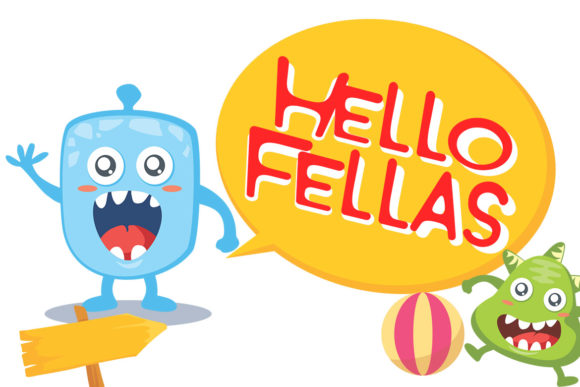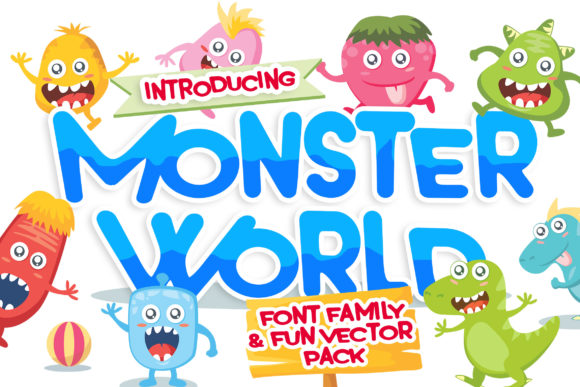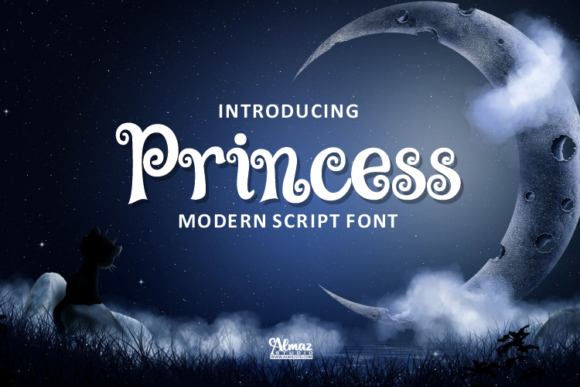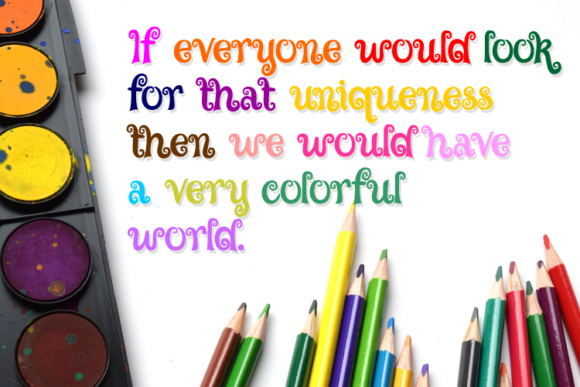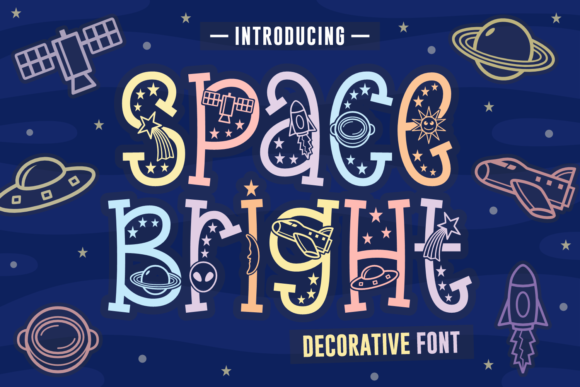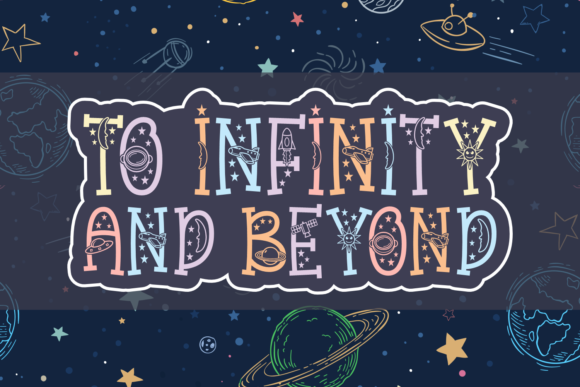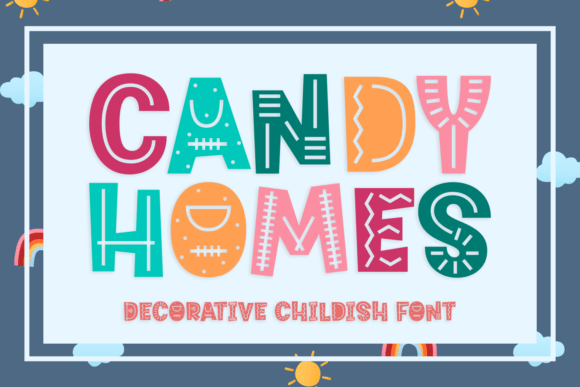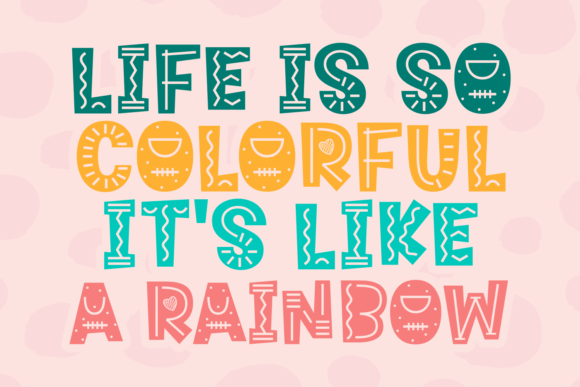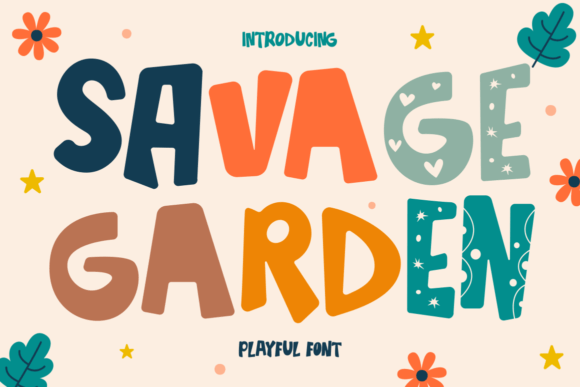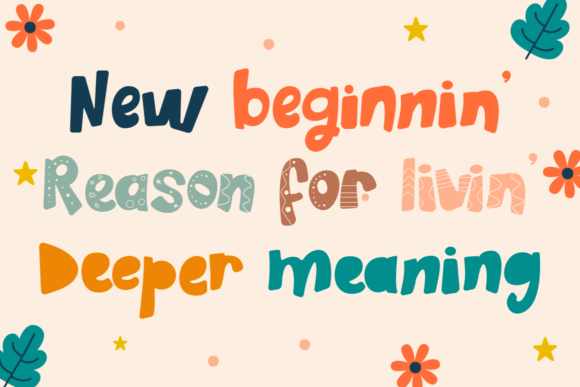
19 Best Whimsical Kids Birthday Fonts for Magical Celebrations
Planning a children’s party requires attention to every little detail, from the cake to the digital invitations. Typography plays a massive role, and choosing the right whimsical kids birthday fonts is essential for setting a festive tone. If you are looking to add a sprinkle of magic and joy to your designs, look no further. Below, we have curated a list of the top 19 options to help you bring your vision to life.
Choosing the Perfect Whimsical Kids Birthday Fonts
Whether you are designing custom birthday banners, scrapbooks, or themed party invites, these typefaces are designed to captivate young audiences. Here is our collection of high-quality, professional-grade choices.
Birthday Candle Font
This playful whimsical kids birthday font features charming candle-inspired details, making it the perfect choice for festive party invitations and cheerful children’s design projects. It breathes life into any layout, ensuring your text looks as bright as a birthday cake.
Love Monster Font
The Love Monster font adds a touch of playful charm to any project, making it the perfect choice for joyful party designs. Its unique and fun aesthetic is guaranteed to bring a lively energy to your creative work.
Play Chunky Font
Play Chunky is a vibrant and playful typeface, perfectly suited for whimsical kids’ birthday themes and joyful celebration designs. Its bold, bubbly letterforms add a touch of cheer to any creative project you undertake.
Blink Blink Font
Blink Blink is a charming and playful whimsical kids birthday font, perfect for crafting joyful party invitations, banners, and creative projects that capture the magic of childhood celebrations. It is a top-tier choice for designers who need a balance of elegance and fun.
Baby and Me Font
This typeface features a playful and friendly aesthetic, perfect for crafting magical invitations and charming party decorations. When hunting for high-quality whimsical kids birthday fonts, this one stands out for its soft curves and inviting personality.
HelloBoy Font
This playful and lighthearted typeface serves perfectly as a Whimsical kids birthday font, adding a touch of joy and youthful charm to your celebration designs. Its unique letterforms ensure that every headline looks vibrant and memorable.
Toy Brick Font
This playful and creative font is perfect for crafting whimsical party designs, turning every word into an exciting adventure for a kids birthday celebration. It adds structure and fun to any creative task.
Bold Summer Font
This playful and vibrant typeface captures a festive spirit, making it an excellent choice for a whimsical kids birthday font to brighten up your party invitations and decorations. Every character radiates a warm, summer-time feeling that kids absolutely love.
Monster World Font
This font brings a playful and cheerful vibe to any celebration design. Monster World is perfect for crafting eye-catching party invitations, personalized decor, and charming character-themed creative projects for little ones.
Btzprincess Font
Btzprincess is a charming and whimsical kids birthday font perfectly suited for party invitations, festive decorations, and adding a touch of fairytale magic to your design projects. It is essentially the perfect choice for any little princess theme.
Glitter Day Font
Glitter Day is a charming and playful typeface, perfectly suited for whimsical kids birthday designs and adding a touch of magic to your creative projects. Using top-rated whimsical kids birthday fonts helps elevate simple designs into professional party materials.
Dinosaur Font
This whimsical kids birthday font, Dinosaur, is perfect for creating vibrant and memorable birthday designs with a touch of prehistoric fun. Its playful aesthetic makes it an ideal choice for custom invitations, party decor, and themed apparel.
Space Bright Font
This playful and cheerful typeface adds a touch of magic to any creative project, making it an ideal whimsical kids birthday font for festive designs. The star-like quality in its lettering is fantastic for space-themed parties.
Princess Font
This charming Princess whimsical kids birthday fonts is perfect for capturing a festive mood, making it an ideal choice as a focal point for your creative projects. It brings a touch of royalty that fits perfectly with whimsical kids birthday fonts requirements.
Candy Homes Font
This whimsical and playful typeface is perfect for creating charming birthday invitations, adding a touch of magic to any children’s design project. The candy-inspired aesthetics always delight younger party-goers.
Birthday Cake Font
This font is perfect for crafting vibrant invitations and magical party decor, adding a playful touch to any design project. It is easy to read yet carries enough personality to stand out on flyers and social media announcements.
Conclusion
Selecting the right typography can completely transform the aesthetic of a children’s party. From bold and bubbly designs to magical and fairytale-themed lettering, choosing the perfect whimsical kids birthday fonts ensures your next project captures the true spirit of the celebration. Take your time to experiment with these choices to bring your creative vision to life.